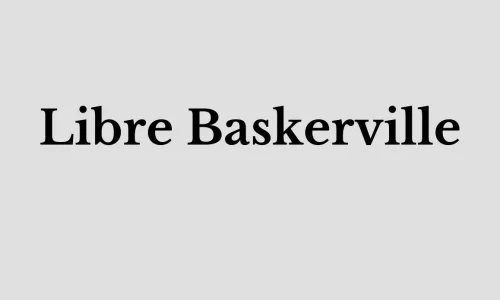
Baskerville Font is an excellent typeface that is part of the extensive Serif Typeface Family. It was created by the English typeface designer and businessman John Baskerville.
He started the designing of this typeface in the starting of 1700 and completed it in 1750c. It produced to be an astonishing and appealing typeface in every outlook.
This is not much considerable font in the present day because of its older styles. There are many similar fonts to the Baskerville Font but the most similar font is Mrs. Eaves Font which is designed in 1996 by Zuzana Licko. Platino Font and ITC New Baskerville are similar fonts to this typeface.